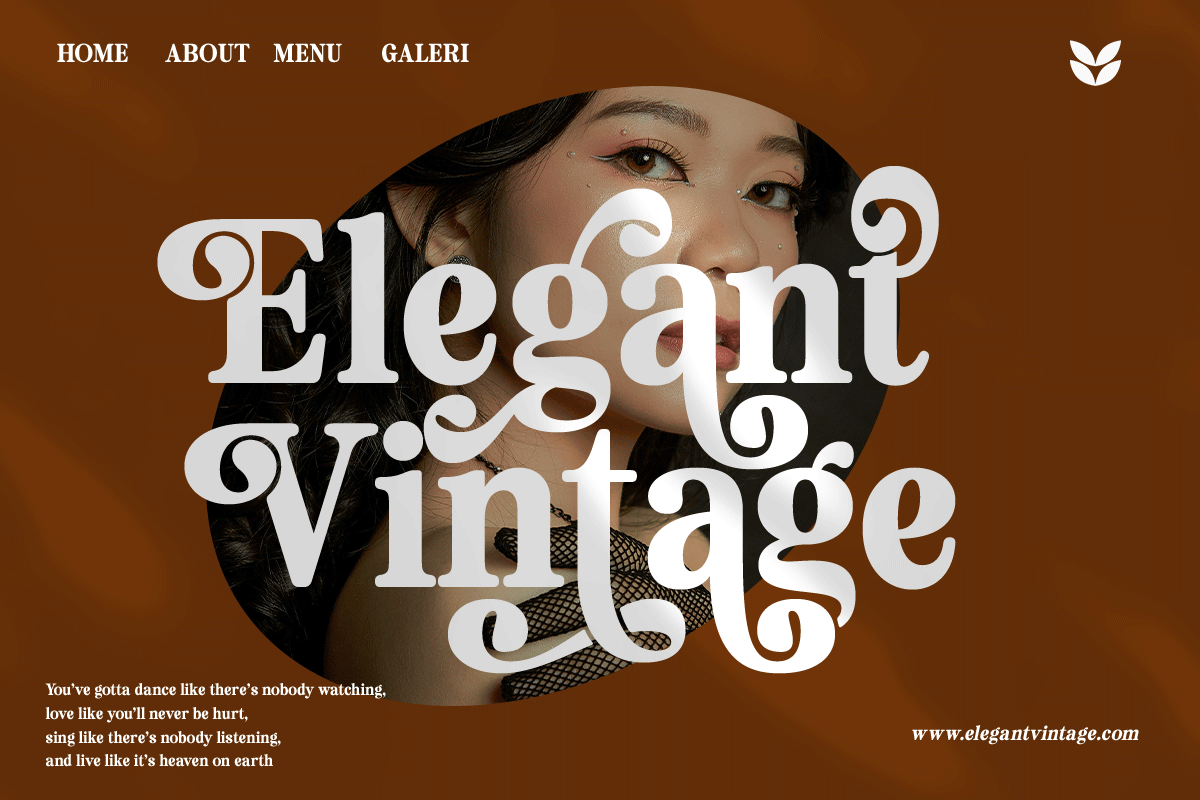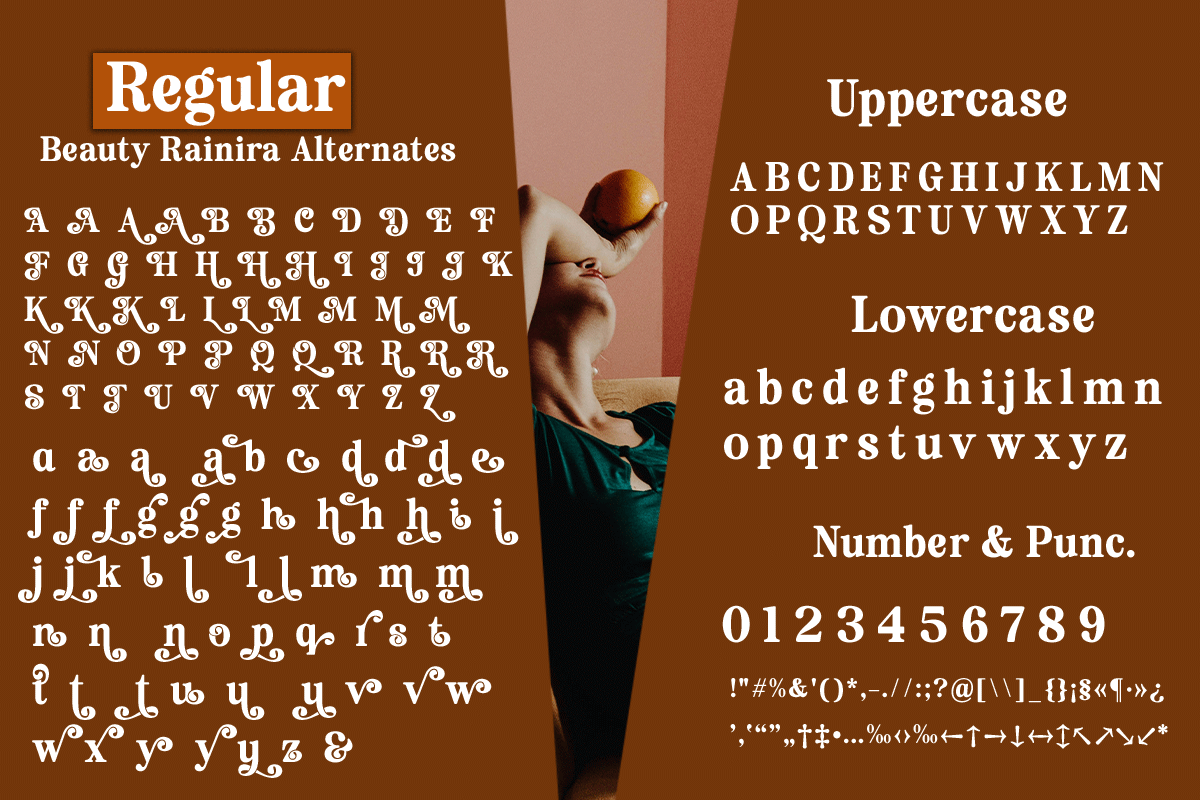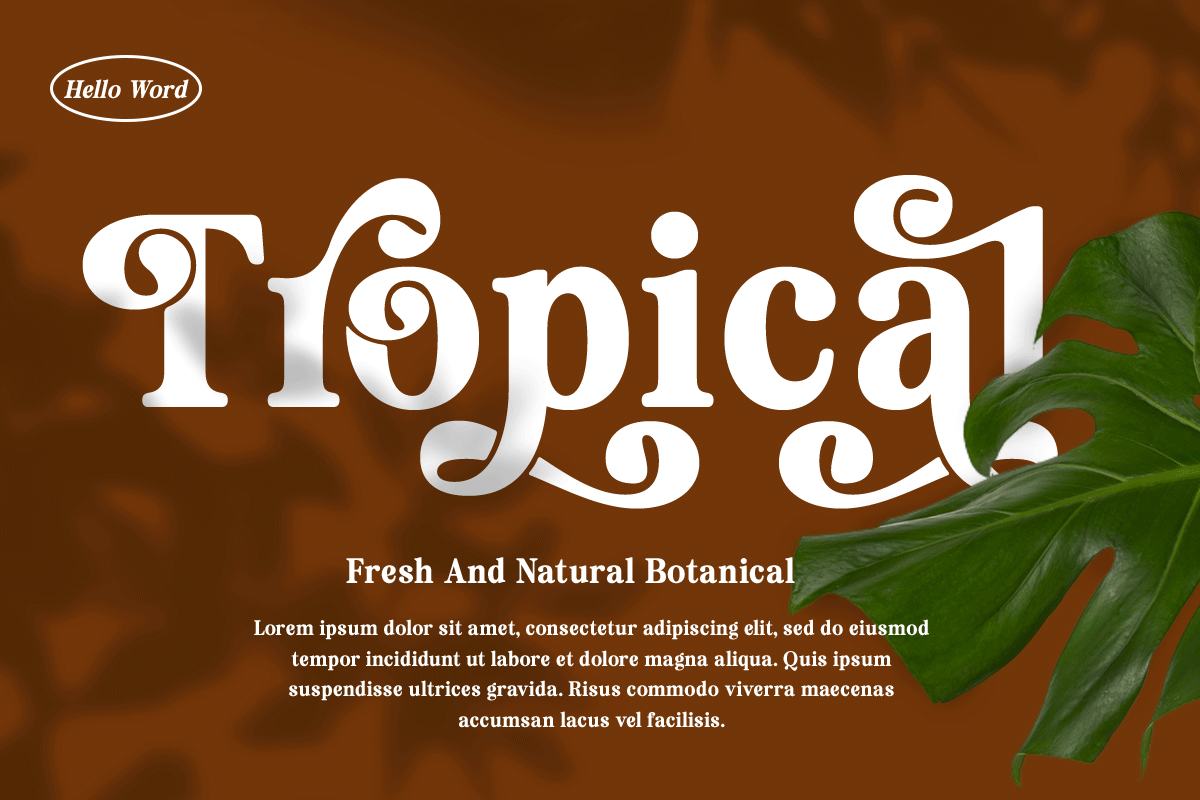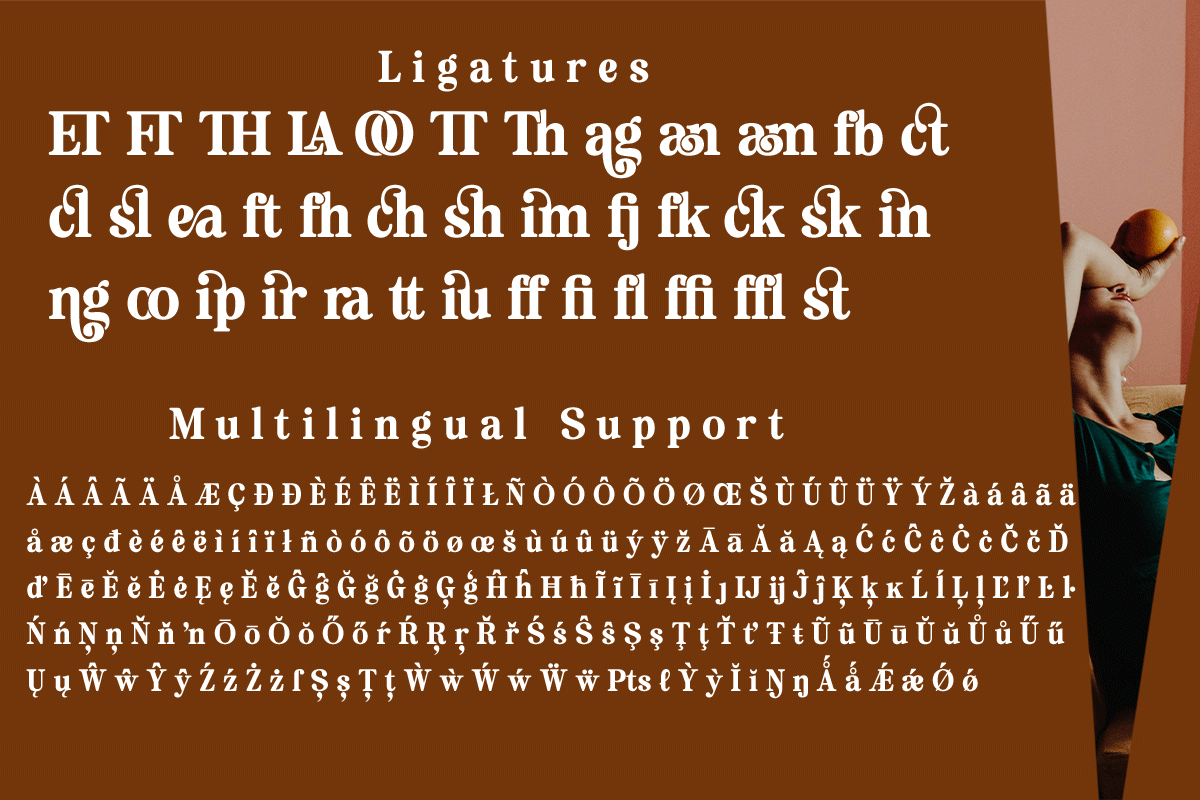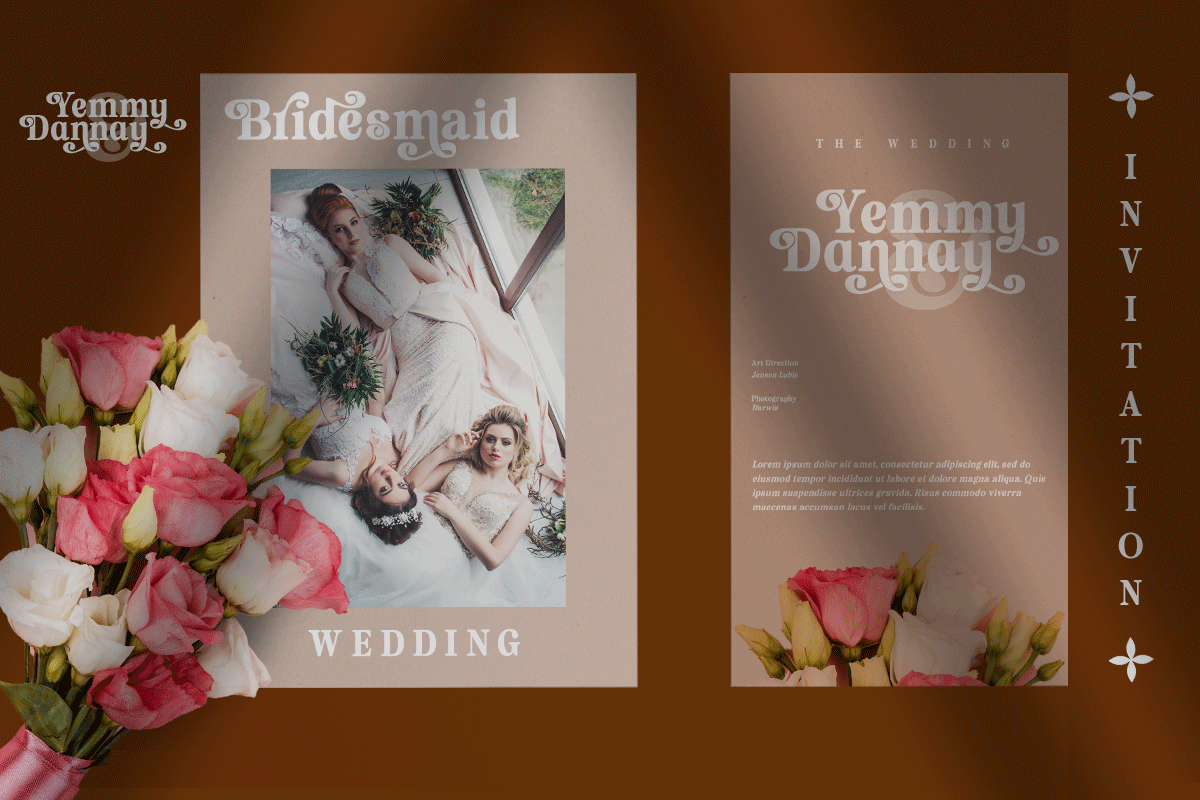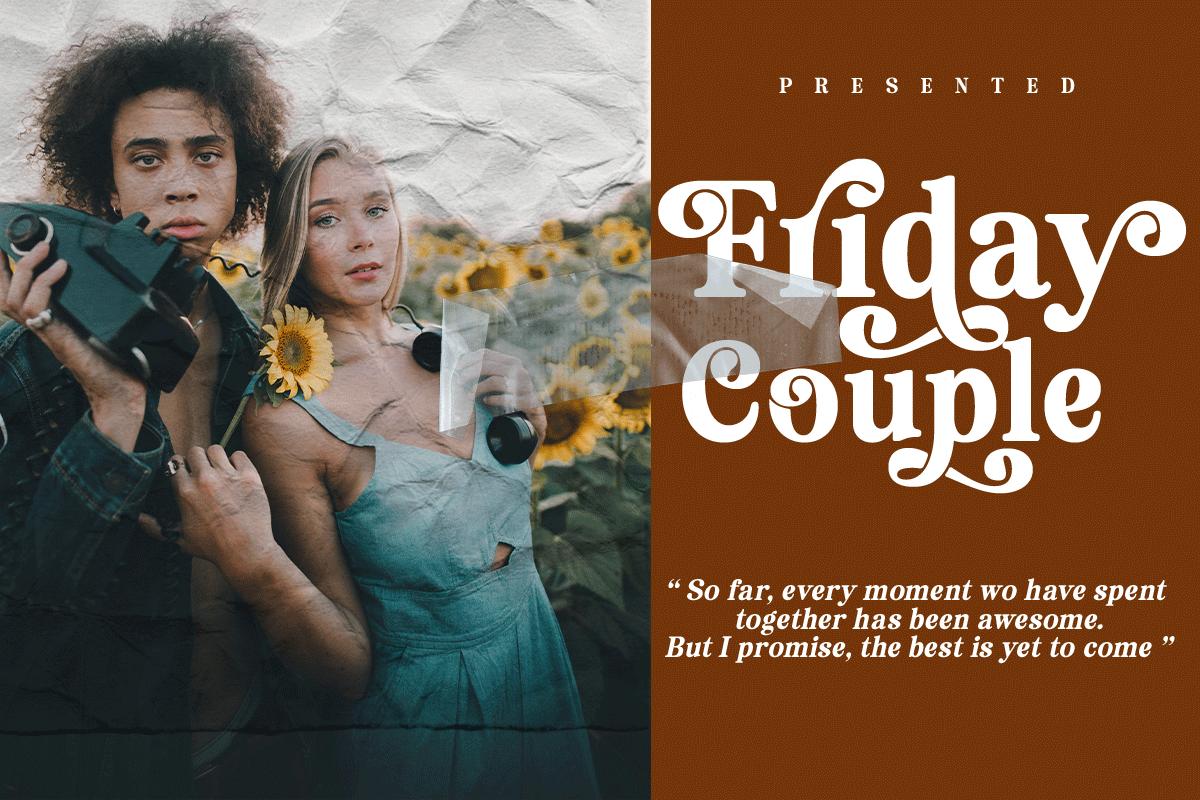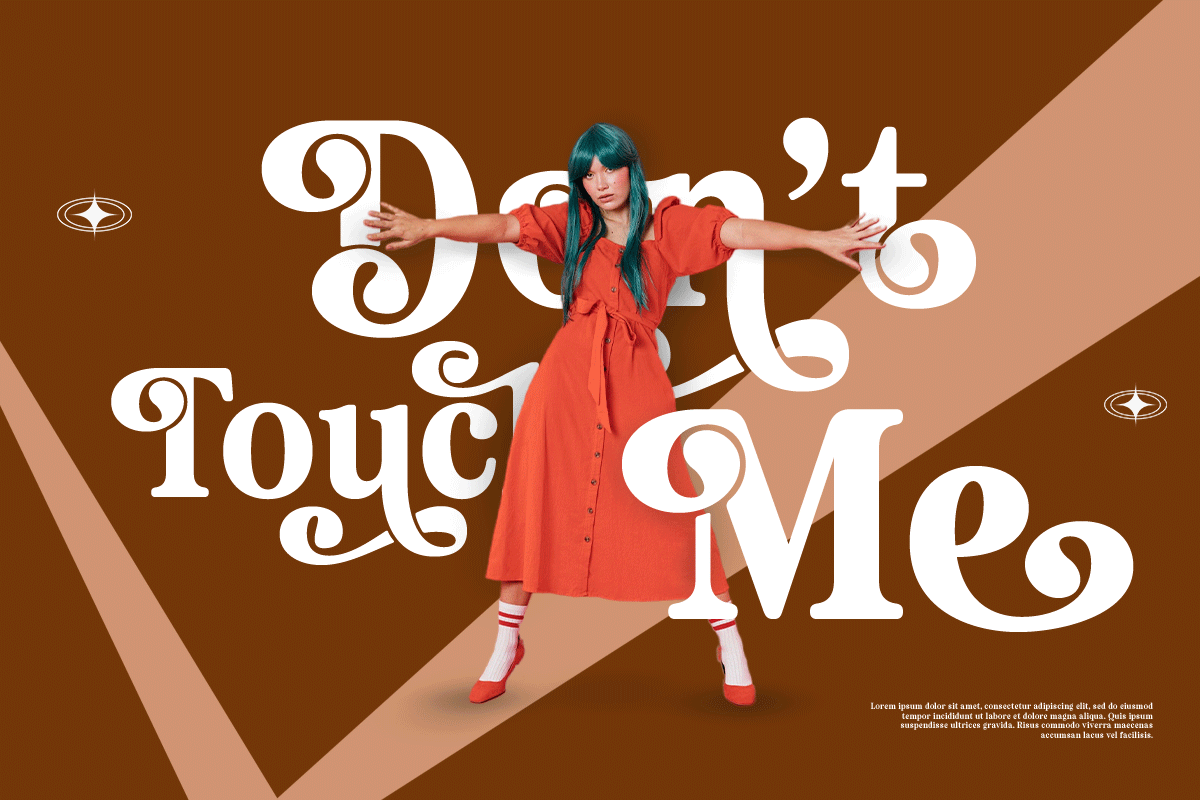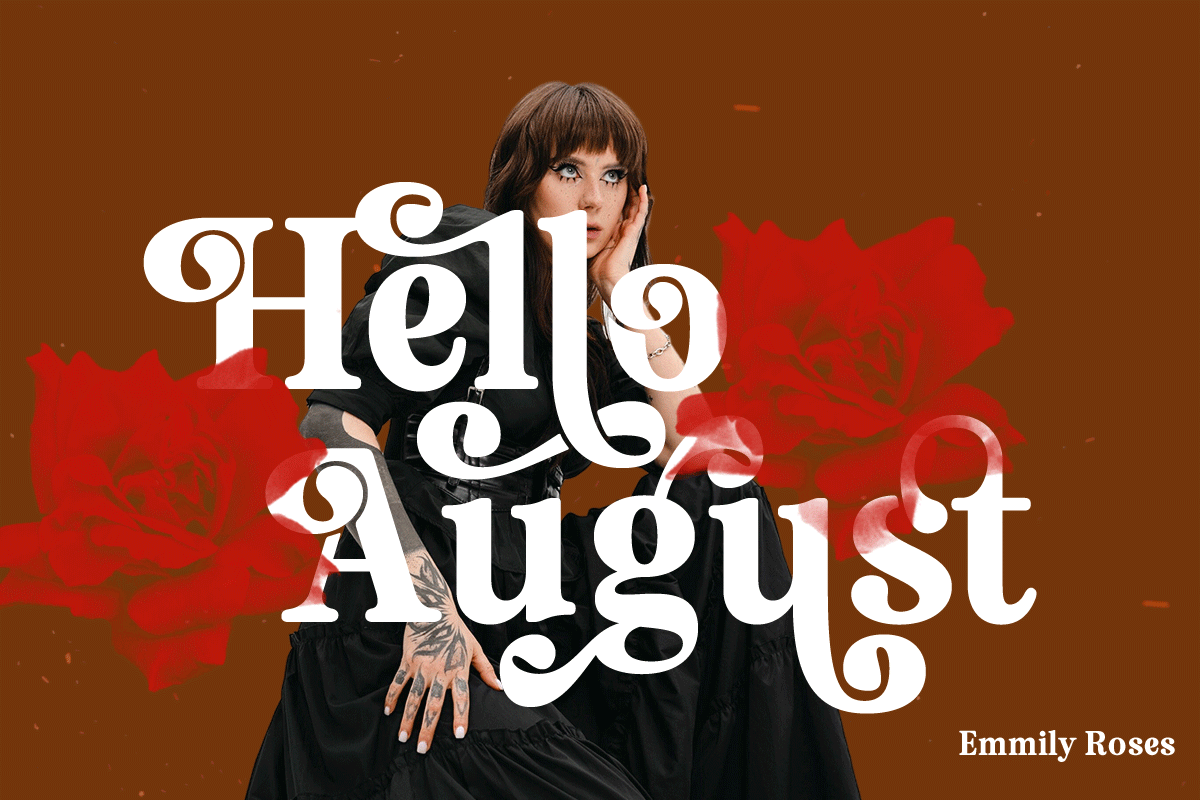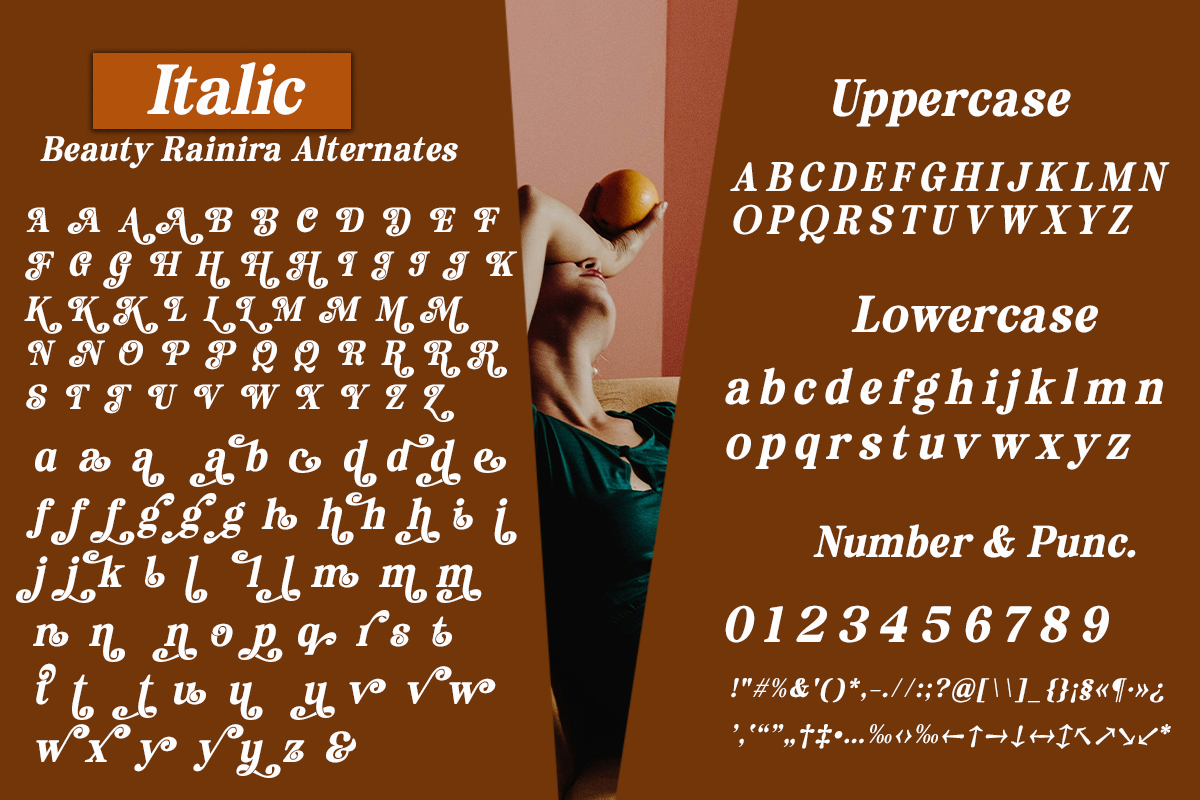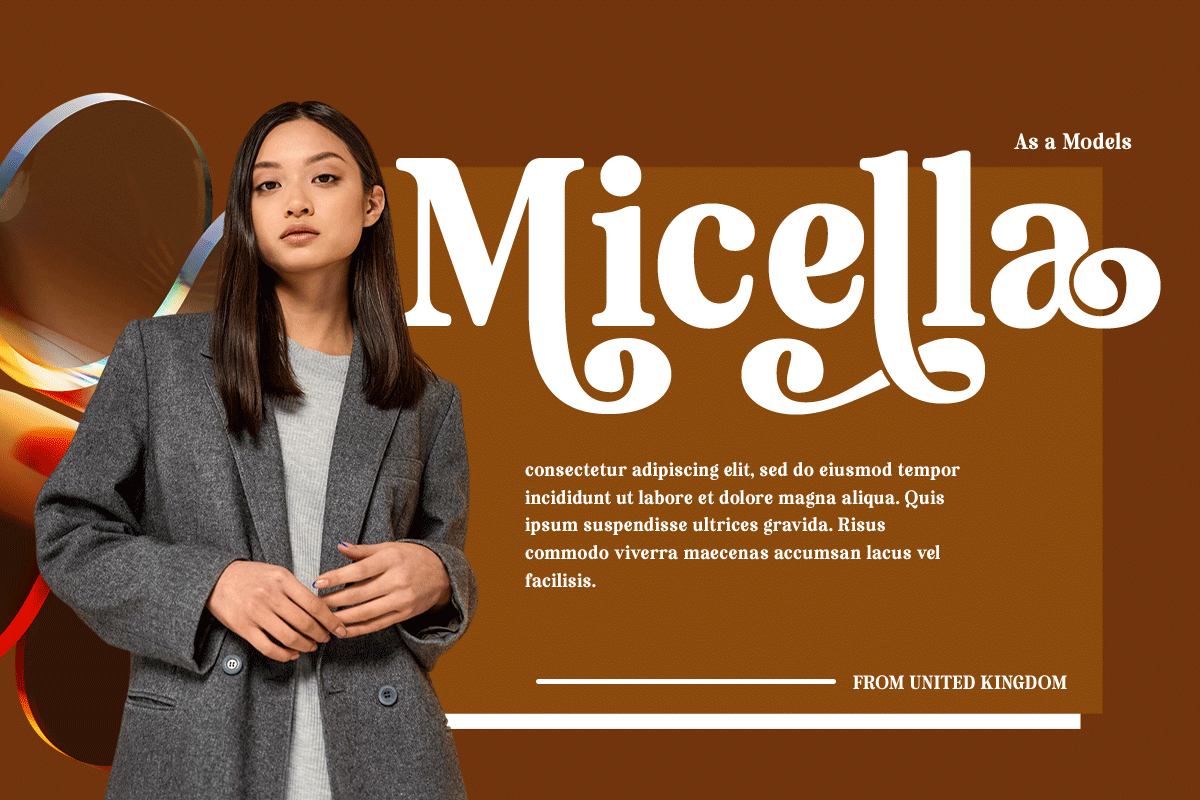
Beauty Rainira - Serif Display Font
Unveiling Beauty Rainira, a sophisticated serif display font embodying luxury and elegance. Blessed with an array of alternates, this typeface offers countless possibilities for every aesthetic, ensuring a style befitting every turn. It is an ideal choice for crafting captivating headlines, evocative titles, memorable logo typefaces, distinctive product branding, or even romantic wedding invitations. Include Beauty Rainira in your font repertoire and let its distinct charm and mellow rebellion enhance the visual appeal of your designs. PUA encoded, accessing all available glyphs and alternates of Beauty Rainira is effortless, paving the way for endless design possibilities.